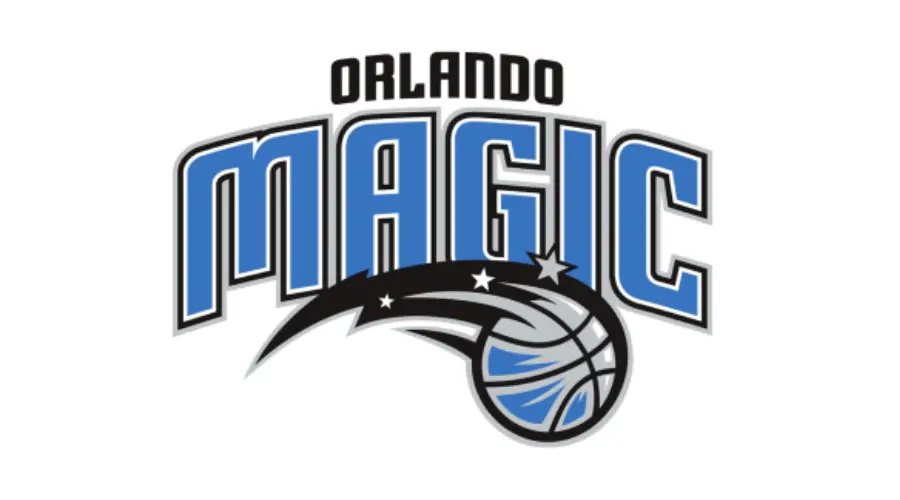
The Orlando Magic Font is associated with the logo of the Orlando Magic, a professional basketball team in the NBA. This font embodies the energetic and dynamic spirit of the team, featuring bold and sharp lines that give it a sporty and modern look. Although there is no official font exclusively named “Orlando Magic Font,” several fonts share similarities with the logo’s style.
Similar Fonts
Based on the findings, here are some fonts that bear resemblance to the Orlando Magic Font:
Komikazoom Font
Designer: Apostrophic Labs
Characteristics: Bold, playful, and dynamic, suitable for logos and headings.
Marfanco Font
Designer: UICreative
Characteristics: Modern, sleek, and professional, making it a good choice for various branding needs.
NBA Magic Font
Designer: Eriq P. Jaffe
Characteristics: Although not an exact match, it captures a similar vibe with its sporty and robust design.